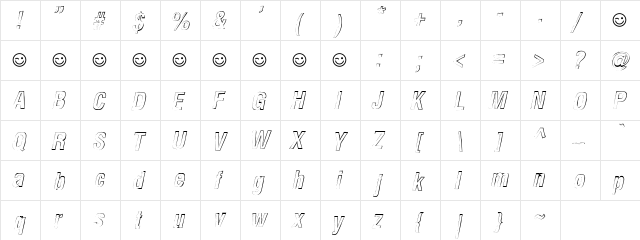
Newside FP Outline Alternate Italic
Design Context for Newside FP Outline Alternate Typeface
Newside FP Outline Alternate brings ornamental detail and strong personality to headlines and identities, where visual impact matters more than quiet functionality. The dynamic lean of this cut emphasises speed and emphasis in any layout.
Font Pairing: Pair with a clean neutral sans-serif for body copy to let Newside FP Outline Alternate's character lead without overwhelming the composition.
Pro Tip: Treat Newside FP Outline Alternate as the centrepiece of your typographic hierarchy. One strong heading set in a decorative face can carry an entire layout.